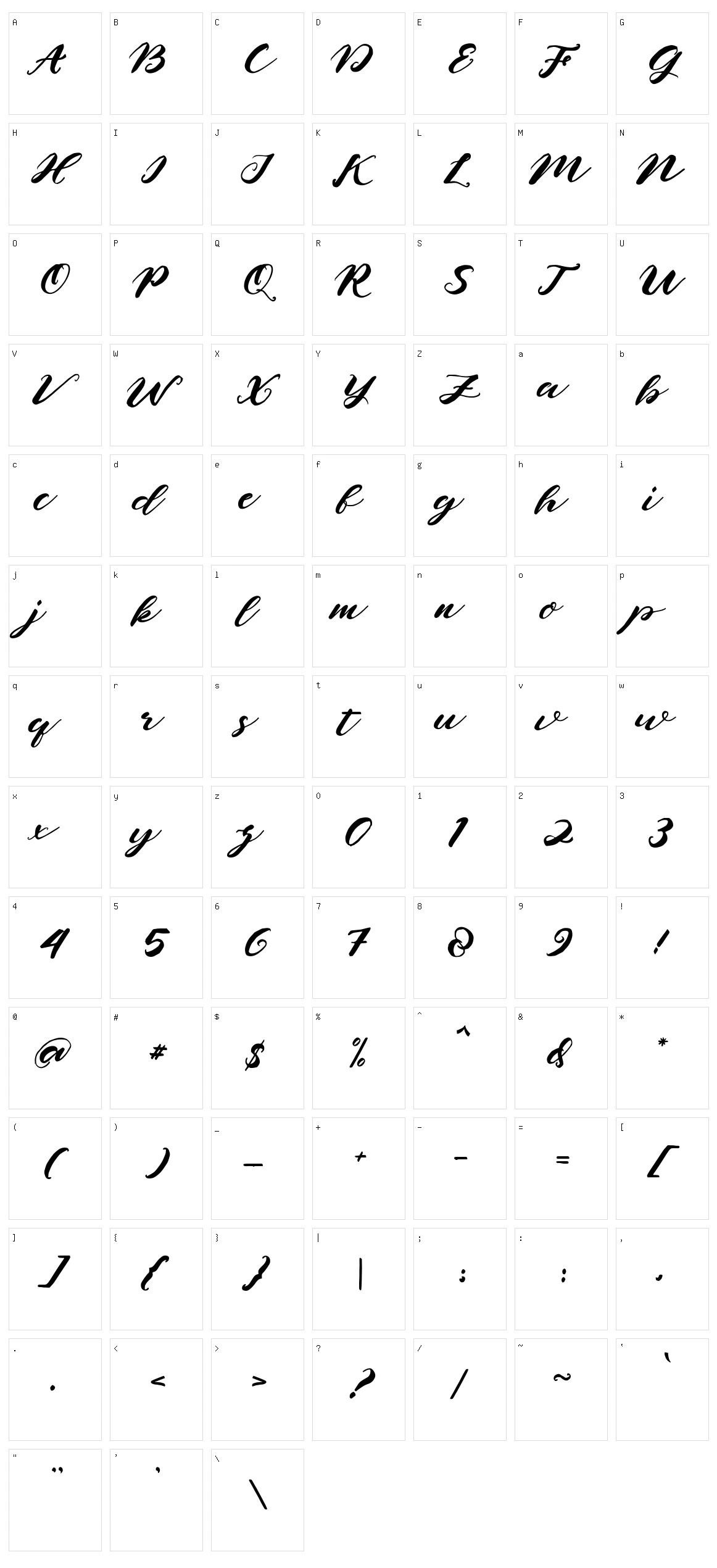
The free font Naghita Brush is carefully designed by Sulthanstudio, showcasing a thoughtful balance of creativity and usability and falls under the Script font style. When you download the ZIP file, it contains only 97.39 KB of font files, making it lightweight and quick to download. Please review the license details below to understand permitted usage and distribution rights. If license information is not available, we recommend using this font for personal projects only or contacting the author directly for commercial usage permissions.